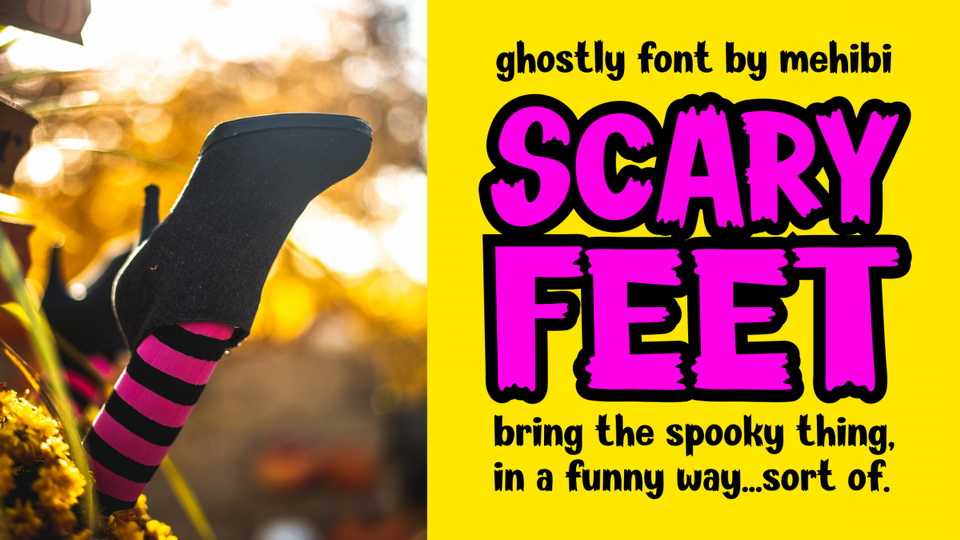
Download Scary Feet font, a grungy hand painted brush typeface with fun yet scary look. Scary Feet is great for posters, headlines, covers and other eye-catching graphics.
Designer: Mehibi